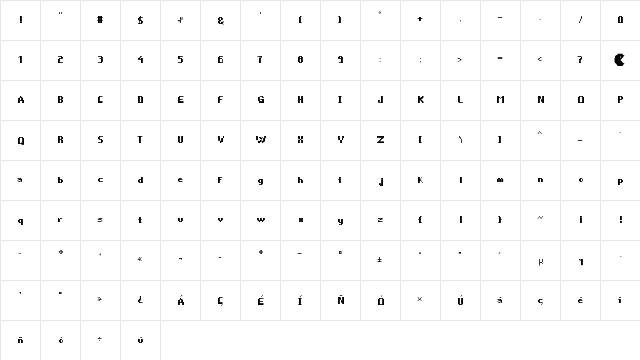
Game Over Regular
| Designer | fodkito |
Design Context for Game Over Typeface
Game Over is a composed and adaptable typeface that performs quietly and consistently across a wide range of design contexts.